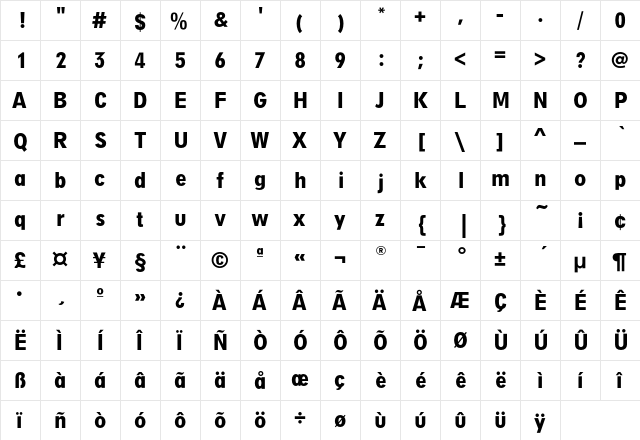
DigiGroteskNEF-BoldCondens Regular
Design Context for DigiGroteskNEF-BoldCondens Typeface
DigiGroteskNEF-BoldCondens has the quiet confidence of well-executed sans-serif typography: versatile, unobtrusive, and dependable at any size. Its bold stroke weight gives it real presence on the page. Its narrow stance lets it pack a punch even in space-constrained designs.
A strong choice for UI design, app interfaces, bold signage, and corporate brand systems.
Font Pairing: Use DigiGroteskNEF-BoldCondens for headlines alongside a lighter-weight sans or serif for body copy to establish clear visual hierarchy.
Pro Tip: Try DigiGroteskNEF-BoldCondens in all-caps with moderate tracking for navigation and label copy — it performs well in systematic UI contexts.